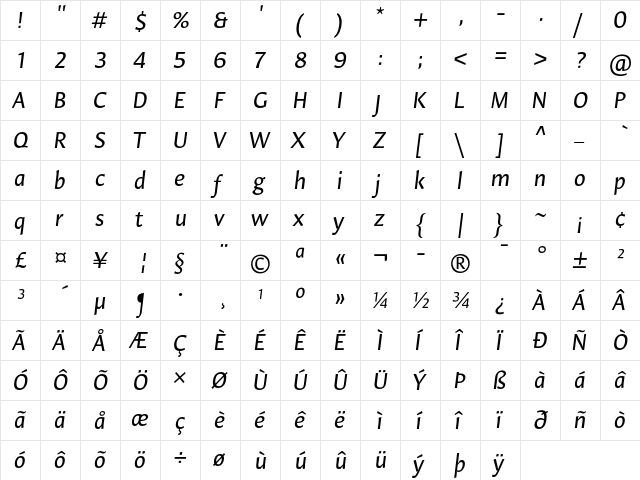
Hildegard LT Std Italic Font Preview
| Foundry | Linotype GmbH |
| Designer | Jan Sonntag |
Design Context for Hildegard LT Std Typeface
Hildegard LT Std takes a measured approach to typography — its balanced proportions and neutral character make it a reliable workhorse for both digital and print work. Its italic angle brings a sense of urgency and motion to the letterforms. The delicate stroke weight brings airiness and refinement to layouts.
Pro Tip: Try Hildegard LT Std for annotation and caption copy alongside an upright companion — the contrast in angle creates a dynamic but ordered typographic system.